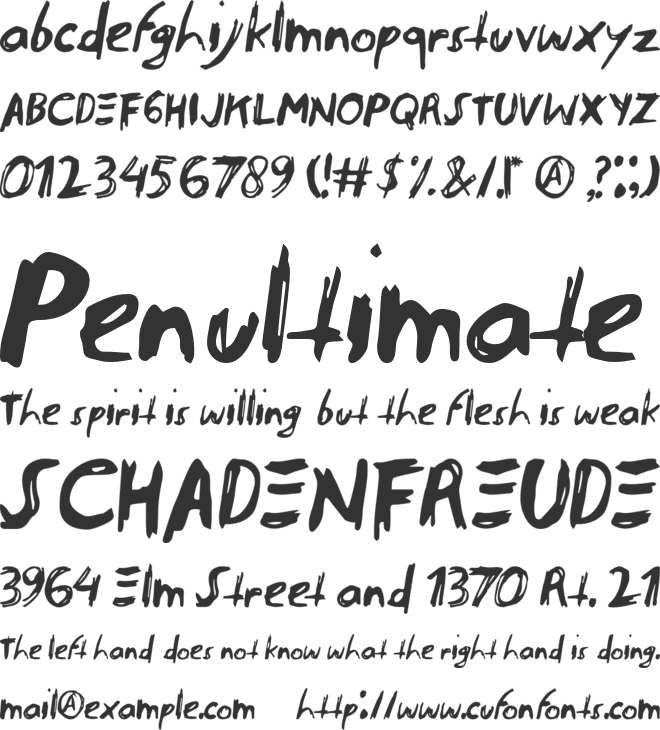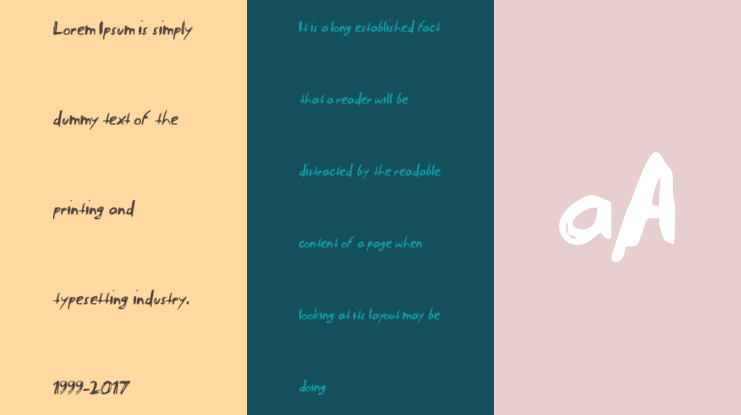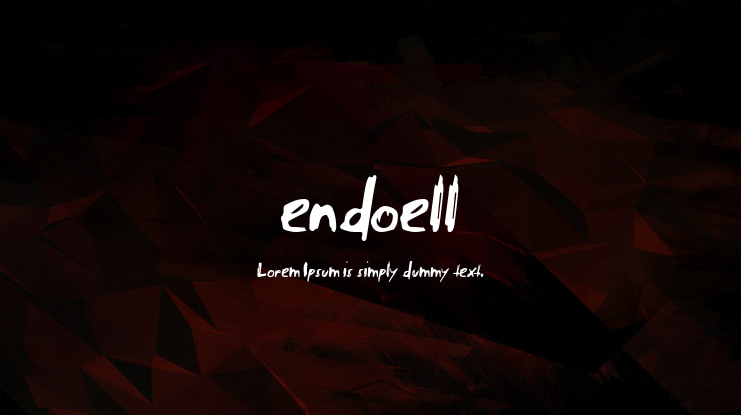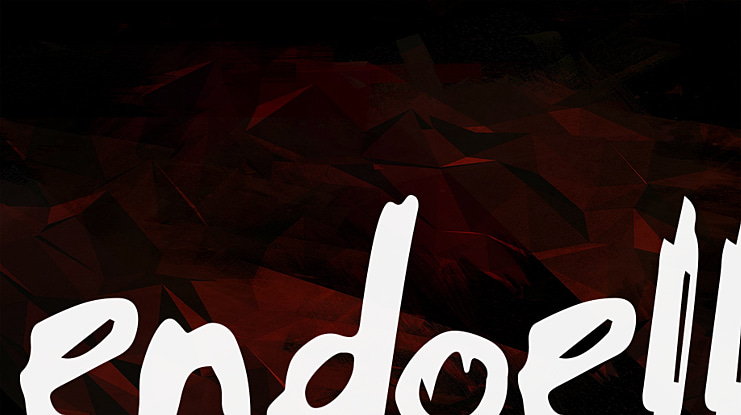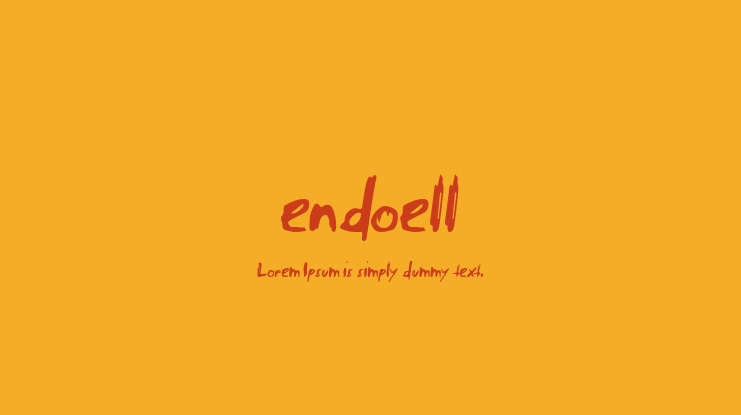
endoell Font
Introducing Endoell handwritten typeface. Originally made by the hand of Ecun. The name Endoell is based on the words End Well and End Will. This Font is good for your design, t-shirt, posters etc.
Endoell handwritten typeface includes uppercase and lower case, a ligature and alternates for the fits of your design.